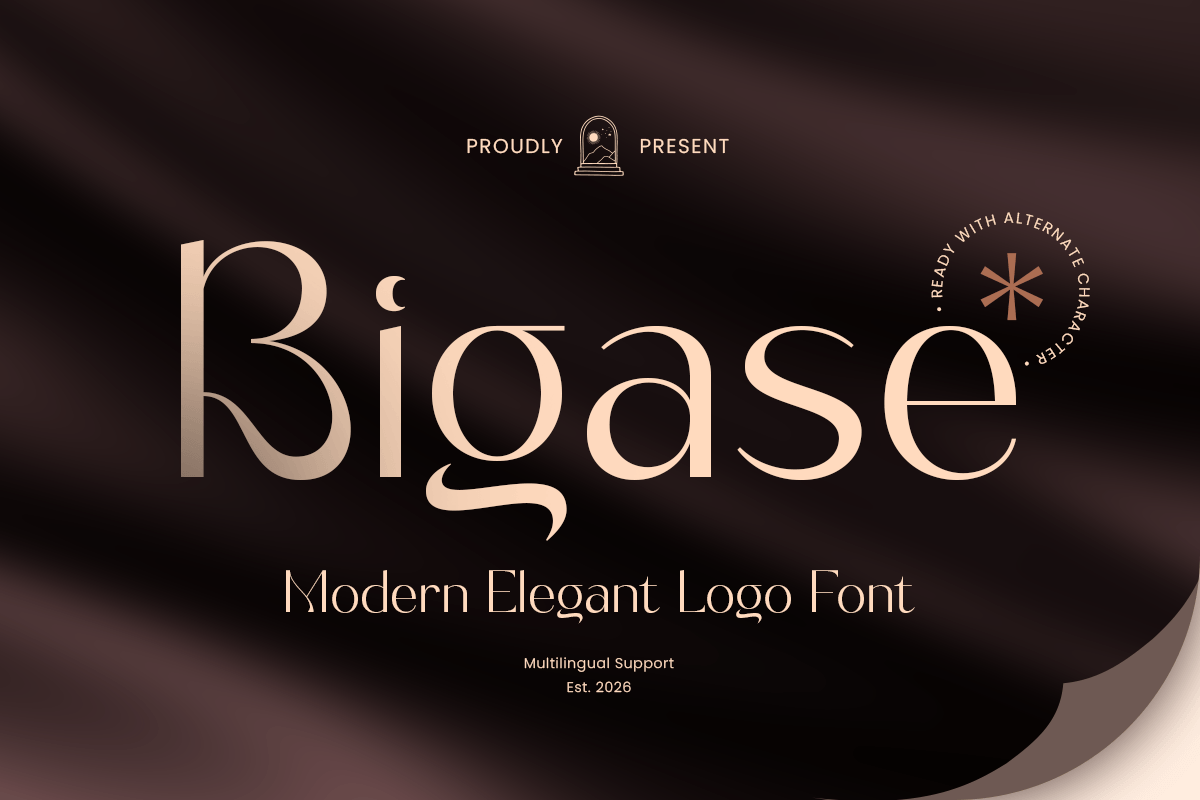
Bigase
-Luxury Elegant Sans Serif FontBigase - Luxury Elegant Sans Serif Font
Bigase is a luxury elegant sans serif font created to bring timeless sophistication and premium character to your creative work. Designed with graceful sans serif details, refined proportions, and modern elegance, this typeface is ideal for fashion branding, luxury packaging, editorial layouts, and upscale visual identities.
Its beautifully balanced letterforms combine classic sans serif aesthetics with contemporary refinement, allowing Bigase to perform effortlessly in logos, magazine headlines, invitations, beauty branding, and premium marketing materials. Every character is crafted to communicate exclusivity, confidence, and visual harmony.
Whether used in print or digital applications, Bigase delivers a polished appearance that enhances luxury brands and high-end creative projects with elegance and distinction.
Bigase – Luxury Elegant Sans Serif Font Features
Elegant serif typeface with premium luxury appeal
Perfect for branding, fashion editorials, logos, and packaging
Sophisticated letterforms with timeless modern styling
Ideal for beauty, lifestyle, wedding, and luxury industries
OpenType features for advanced typographic styling
Bring timeless sophistication to your projects with Bigase – the ultimate luxury sans serif font for elegant branding and premium design. ✨👑